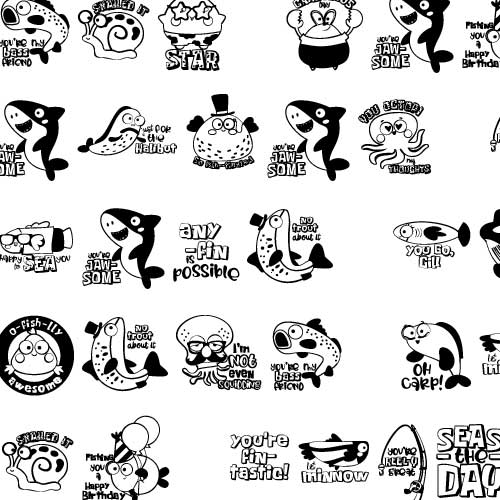
DB Scrubbies - Puns - DB
This adorable doodlebat font features 26 trendy ocean characters with puns that are perfect for cards, crafts, gifts, planner stickers, scrap book pages, classrooms, teachers and more!